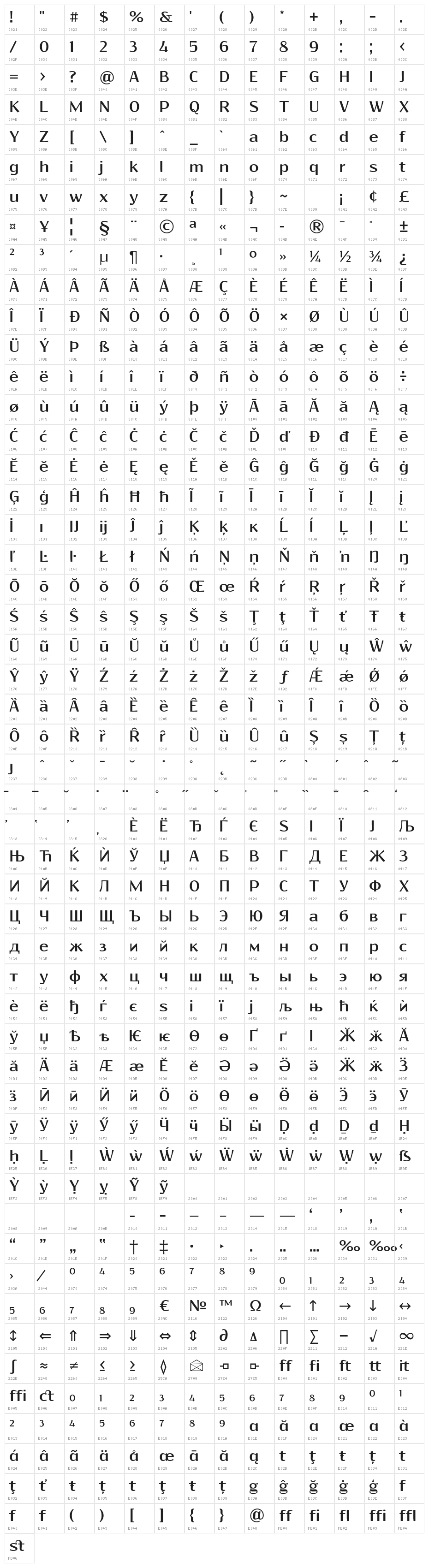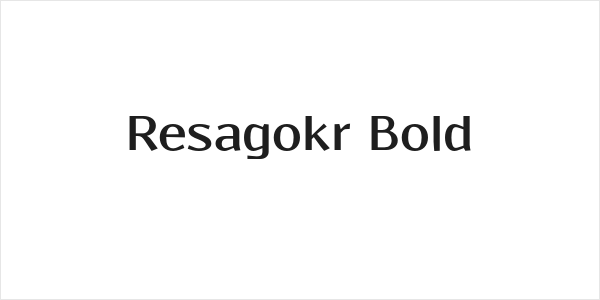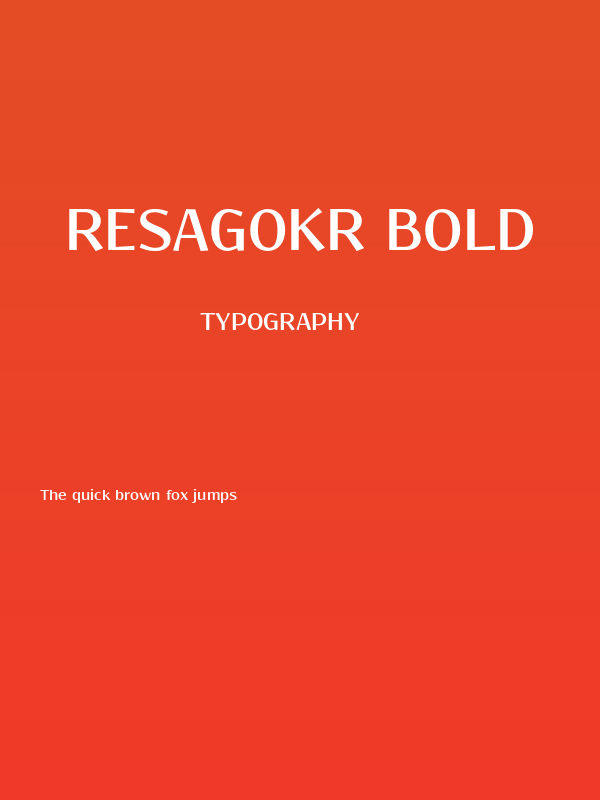
Resagokr Bold Font
Resagokr Bold Description
This typeface exhibits a bold and modern aesthetic with clean lines and a strong presence. The uppercase letters are tall and slightly condensed, giving a sense of authority and professionalism. The lowercase letters maintain a consistent weight, offering a harmonious balance with the uppercase. The numerals are clear and easy to read, making them suitable for various applications. Special characters are well-defined, adding versatility to the font's use. Overall, the design is sleek and contemporary, making it ideal for modern branding and digital interfaces.
| Use Case | Headlines, Logos, Digital interfaces |
| Proposed Projects | Ideal for branding, digital interfaces, advertising, and editorial design. |